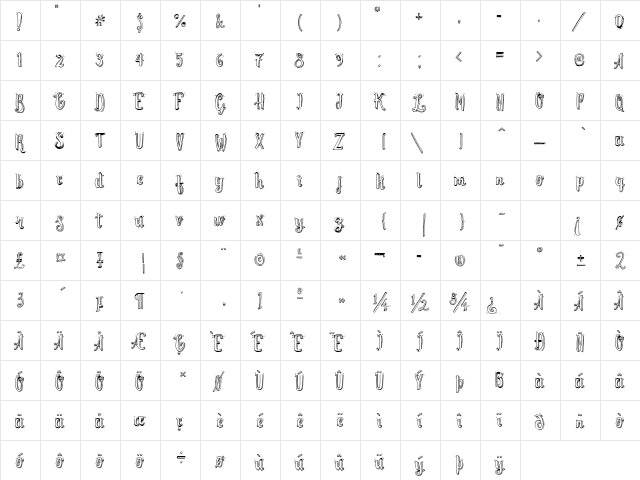
Cute Script Regular Font Preview
Cute Script Regular
Design Context for Cute Script Typeface
Cute Script brings a calligraphic fluidity to the page — its connecting strokes and expressive curves give it an unmistakably human quality.
Font Pairing: Combine Cute Script with a simple geometric sans for maximum contrast — the tension between flowing curves and clean structure is a classic typographic pairing.
Pro Tip: Use Cute Script for short runs of text — names, titles, or taglines. Extended body copy in script faces tires the eye quickly.